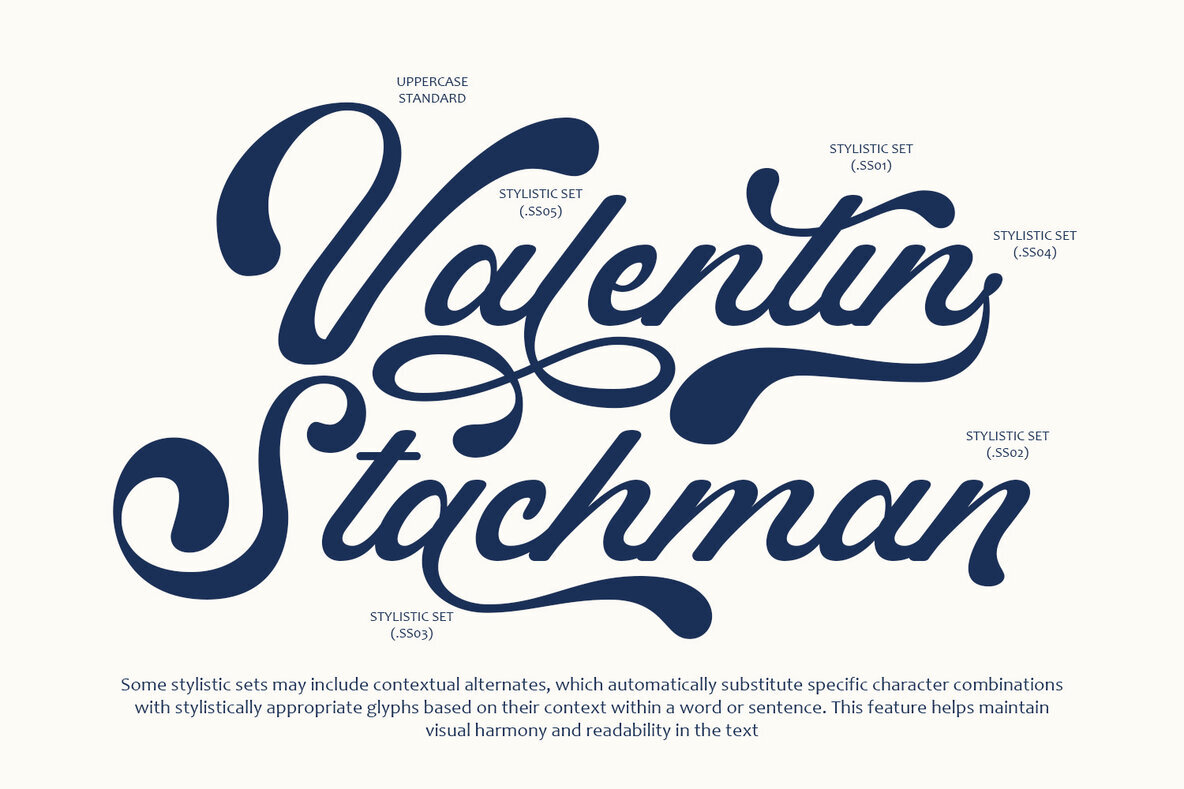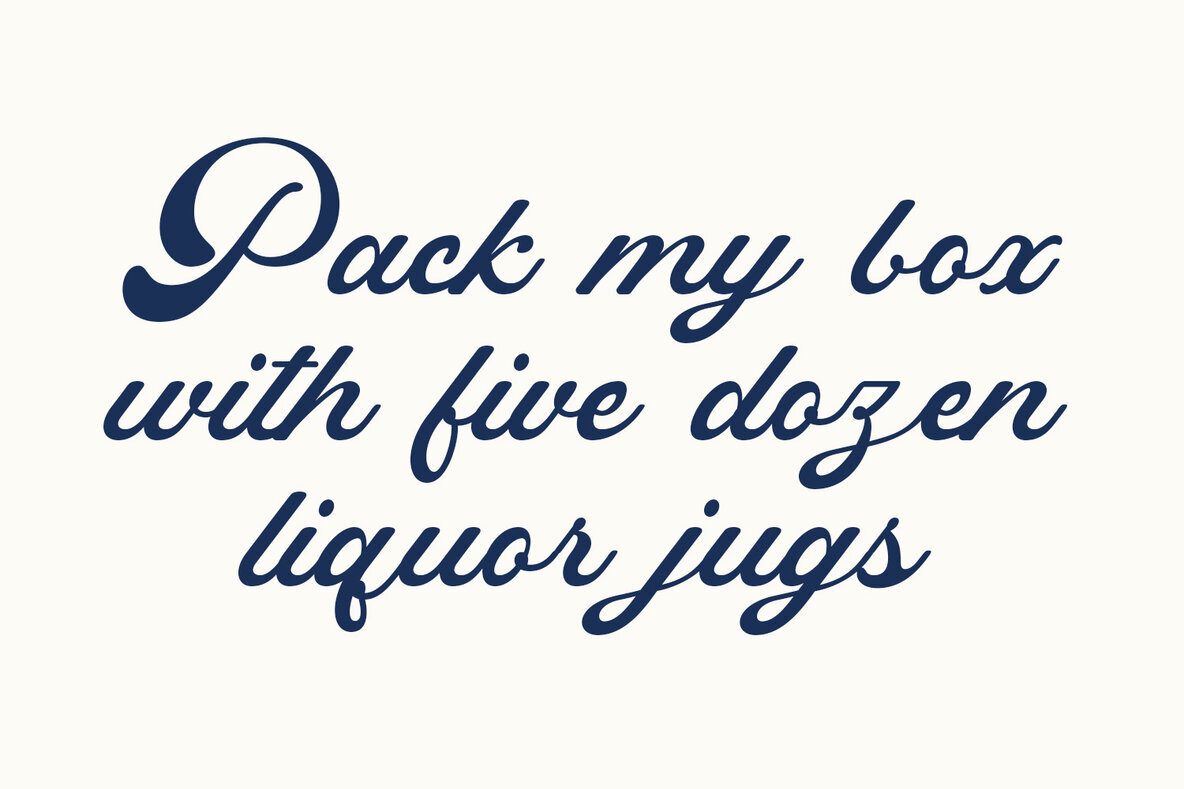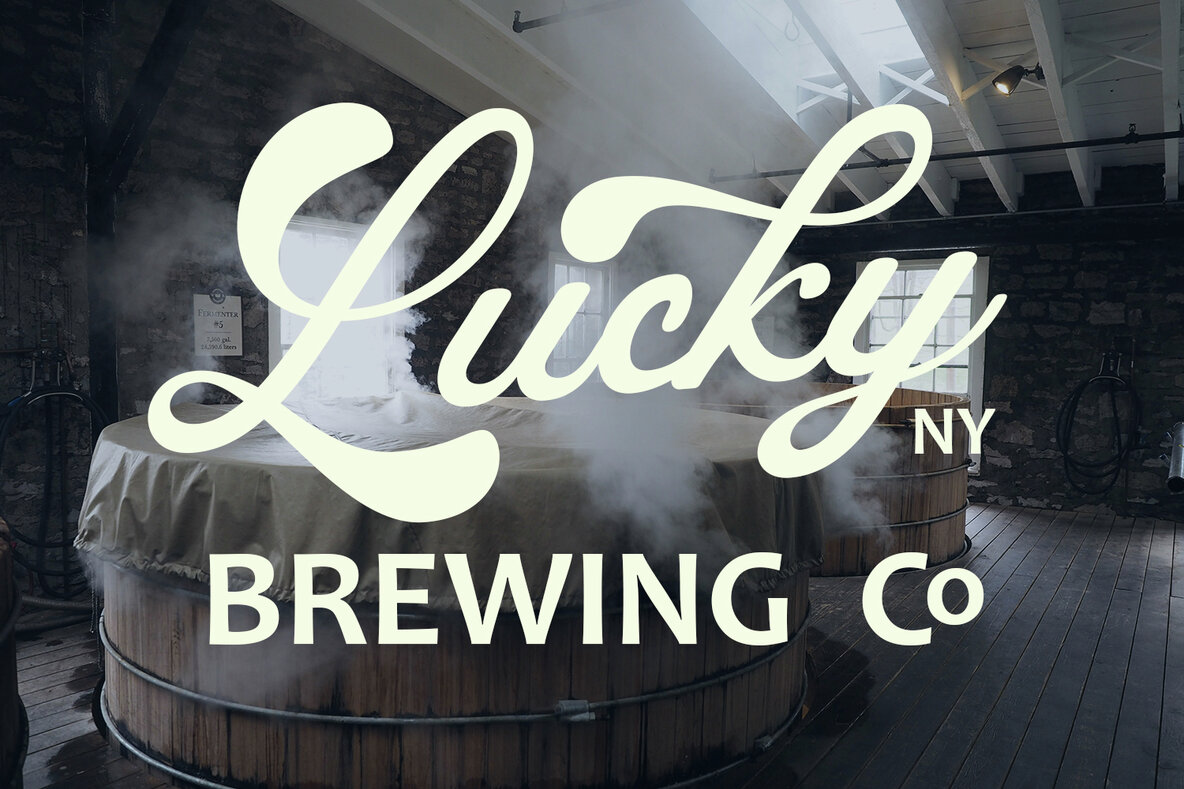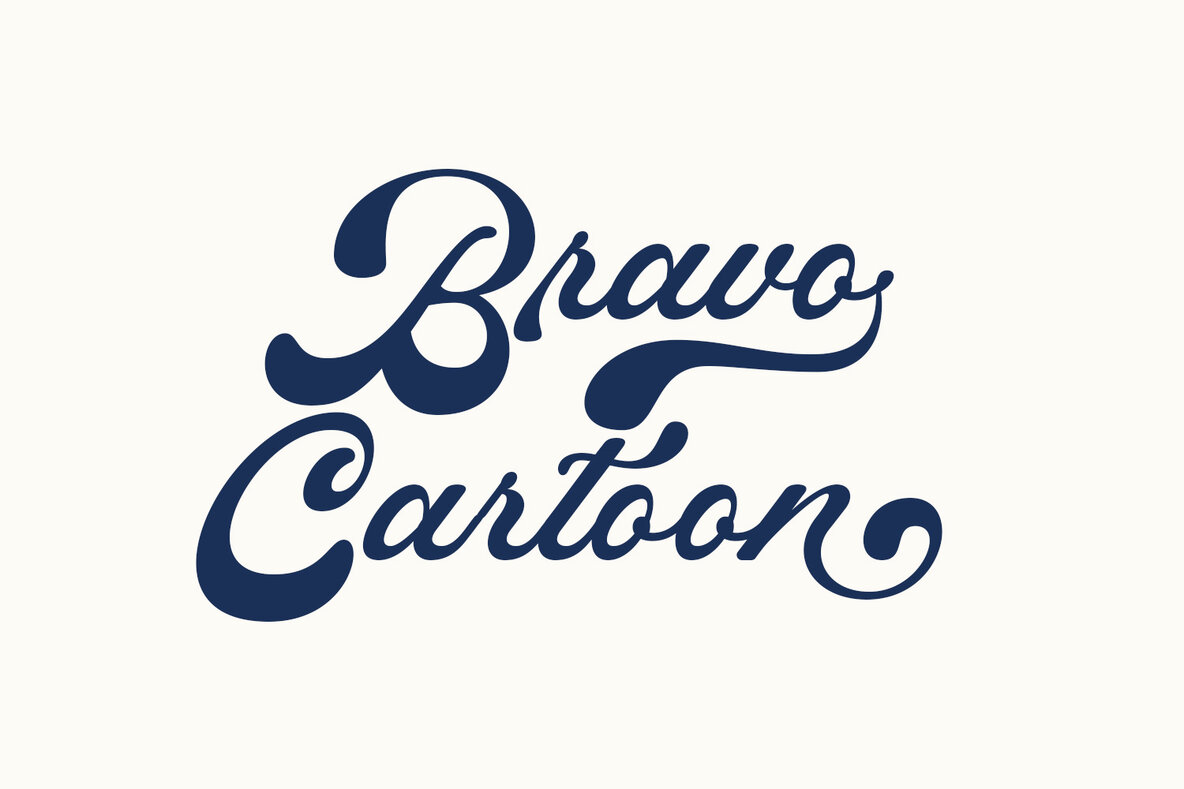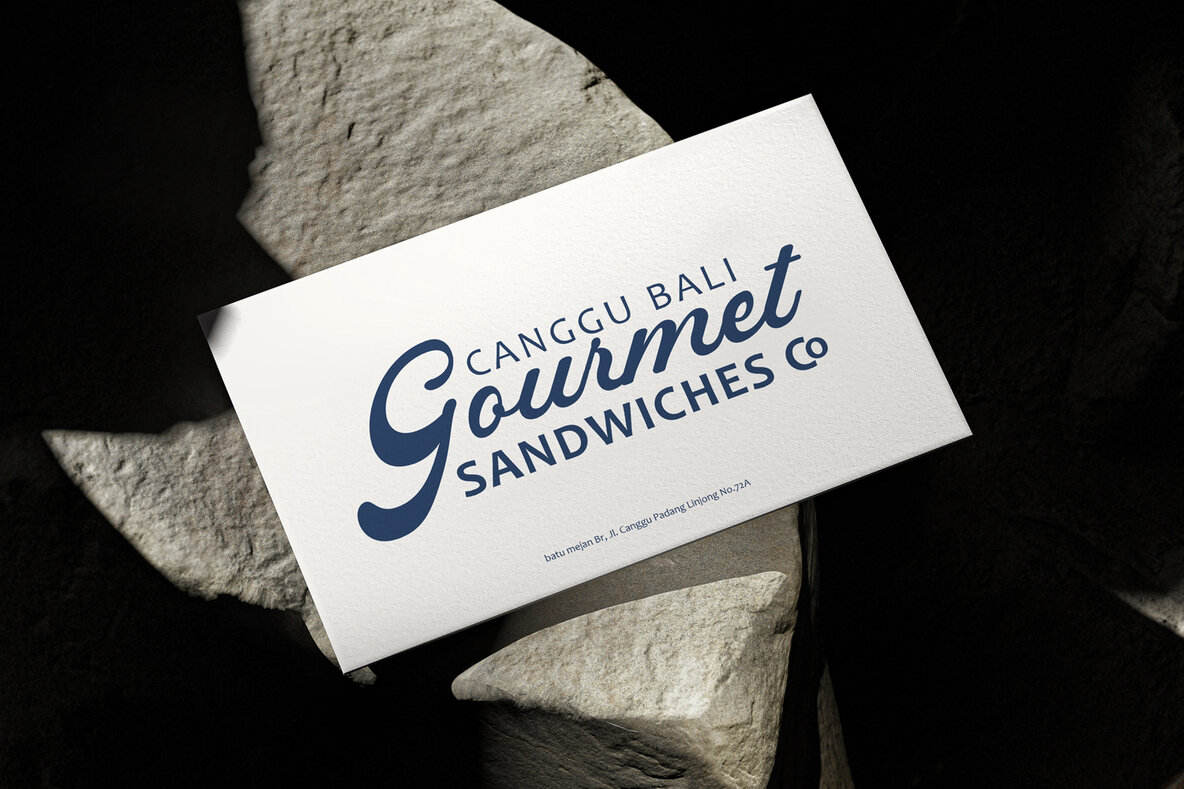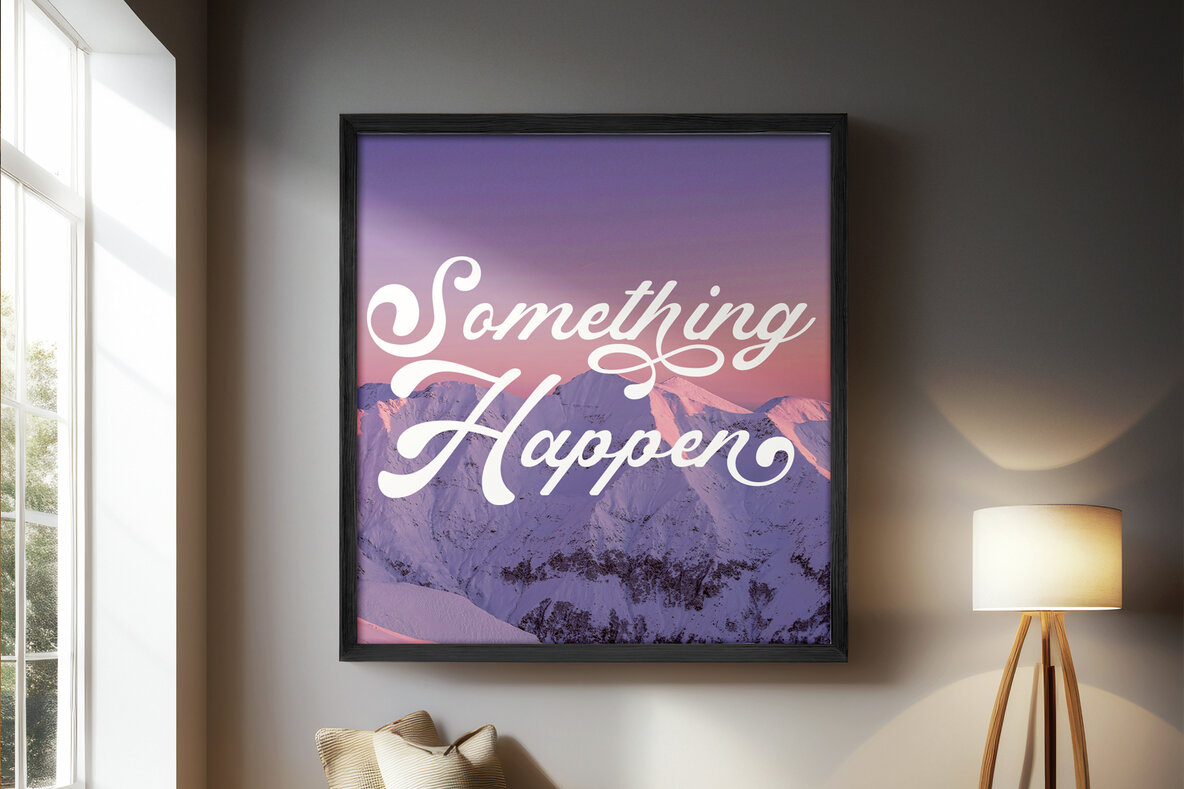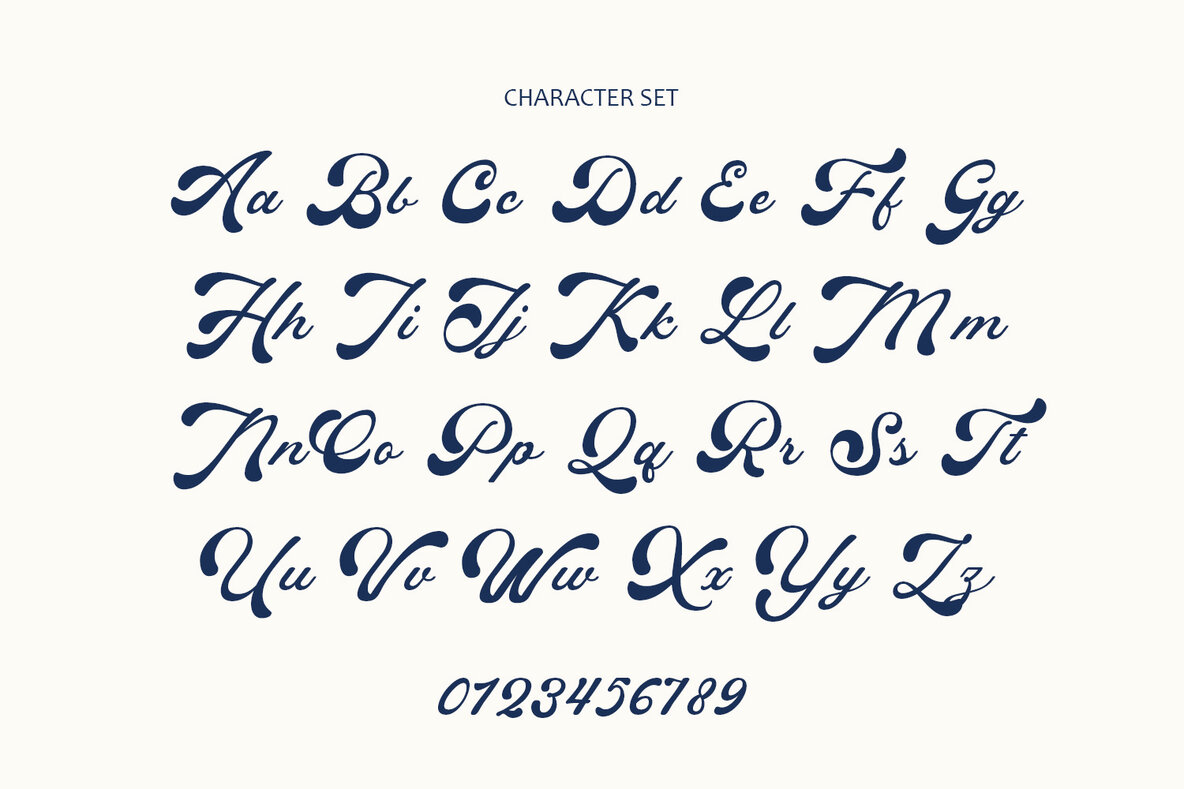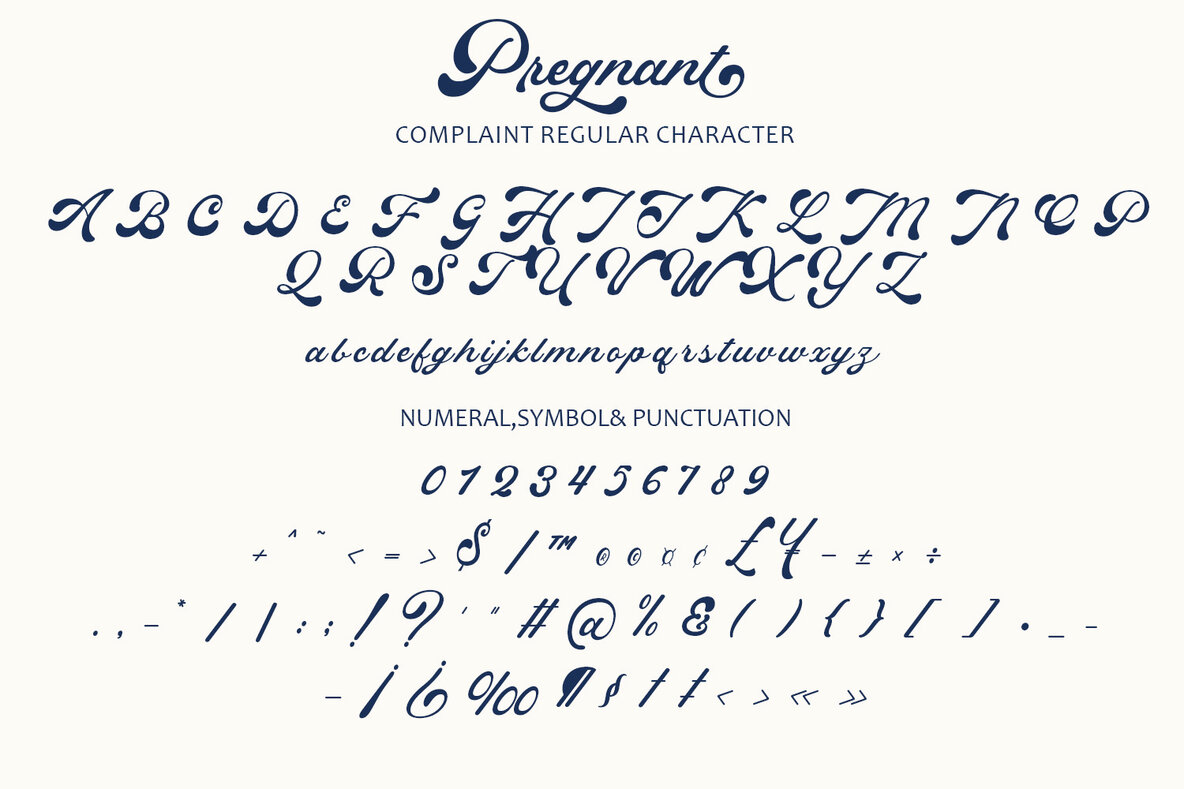
Pregnant Font
Pregnant Regular
"Pregnant" is a bold retro script font that merges nostalgic design with contemporary flair. Inspired by vintage signage and advertisements, its thick strokes and playful curves evoke a sense of yesteryear, making it an excellent choice for projects seeking a retro vibe. The font's dynamic and flowing letterforms create a sense of movement and energy, adding visual appeal to any text.
This high-impact typeface ensures that your text stands out, making it ideal for headlines, titles, logos, and other content requiring a strong visual statement. Despite its bold and decorative nature, "Pregnant" maintains readability even in complex compositions or smaller sizes. Its versatility allows it to be used in various design applications, from branding and packaging to posters and social media graphics, adding vintage charm to modern designs. The blend of old and new elements gives it a unique edge that appeals to both nostalgic and contemporary audiences.